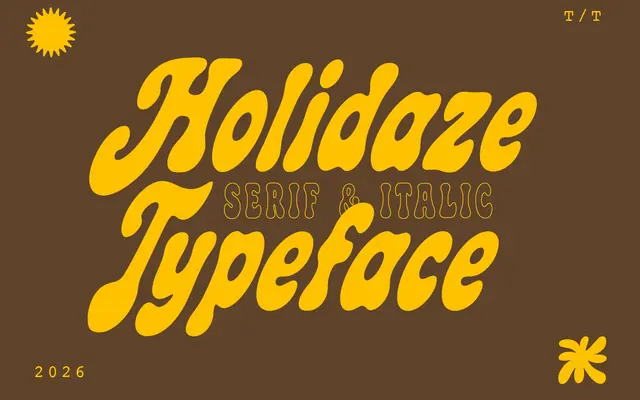
Holidaze Display
A laid-back retro display face with a nostalgic character, offered in Regular and Italic, aimed at band posters, party invites and vintage-style merchandise.
Holidaze Display carries a deliberate holiday-era retro warmth, designed for informal, high-impact applications such as gig posters, event invitations and branded merchandise. The family is minimal in its weight range, offering just a Regular and Italic, but covers Latin Extended character sets including accented glyphs for broader European language support. Files ship in OTF, TTF, WOFF, WOFF2 and SVG formats.
A decorative display typeface with a deliberate nostalgic, laid-back character suited to posters and merch; its retro aesthetic and informal nature place it firmly in the display category.